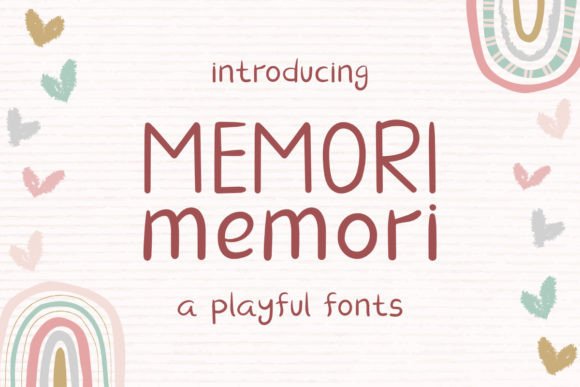
Introducing Memori Font, the captivating script font that dances its way across your designs, bringing a touch of joy and personality. This charming display font is designed by Font-Tastic, renowned for their ability to capture emotions through typography. With Memori, they've created a font that exudes happiness and playfulness.
Memori's playful curves and bouncy characters will add a unique charm and whimsy to your projects. Each letter dances across the page, creating a visual rhythm that draws the eye and captivates the heart. Its distinct style brings a sense of nostalgia, evoking memories of childhood and carefree days.
Whether you're designing invitations, posters, branding materials, or social media graphics, Memori will transform your words into a delightful visual treat. Its versatility allows it to blend seamlessly with various design aesthetics, from modern and minimalist to retro and vintage.
Memori is more than just a font; it's an invitation to let your creativity run wild. It inspires you to think outside the box and embrace your playful side. Download Memori today and embark on a typographic adventure that will leave a lasting impression on your audience. Let Memori bring joy and personality to your designs, making them stand out from the ordinary and truly shine.